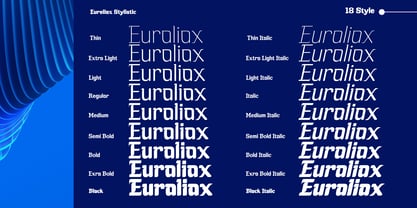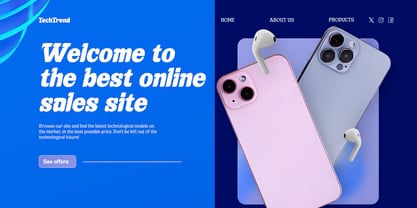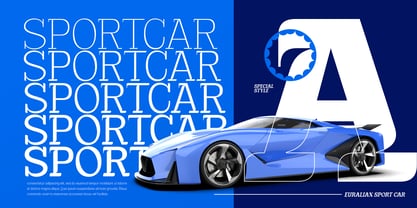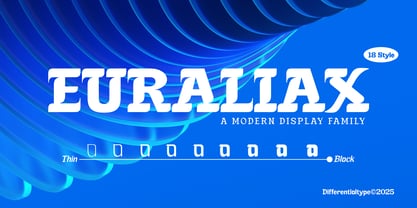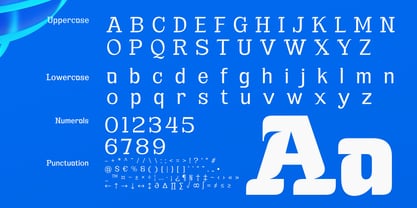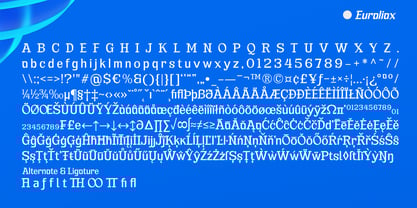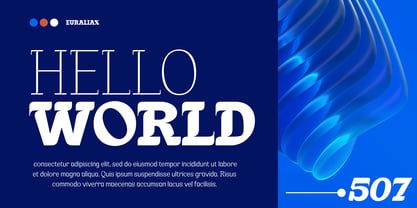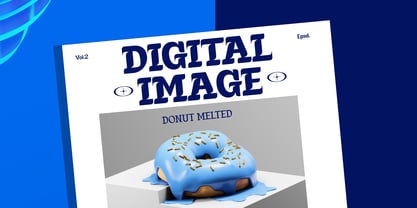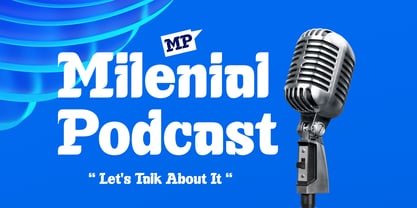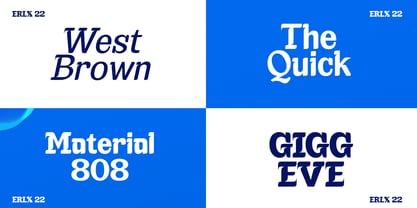
Euraliax
by Differentialtype
The Euraliax Font Family was designed by Sidik Sidik and published by Differentialtype. Euraliax contains 18 styles and family package options. More about this family
Euraliax is a display font that exudes a strong character with a touch of classic elegance. With 9 weight options and accompanying italic variations, a total of 18 styles provide exceptional flexibility in design. Its unique curves blend with a vintage serif vibe, creating a distinctive impression—bold, sophisticated, and highly readable. Every stroke in Euraliax brings the perfect balance between modern aesthetics and nostalgic charm, making it the top choice for designers aiming to create an authentic and classy look.
More than just a font, Euraliax is a visual statement that captures attention instantly. It is ideal for various display purposes—posters, book covers, headlines, product branding, and logos that need to stand out. Its clarity and readability remain consistent across all weights, making it perfect for typography that requires visual appeal without sacrificing function. If you're searching for a font that brings messages to life with unique and limitless charm, Euraliax is the answer.
Designers: Sidik Sidik
Current Foundry: Differentialtype